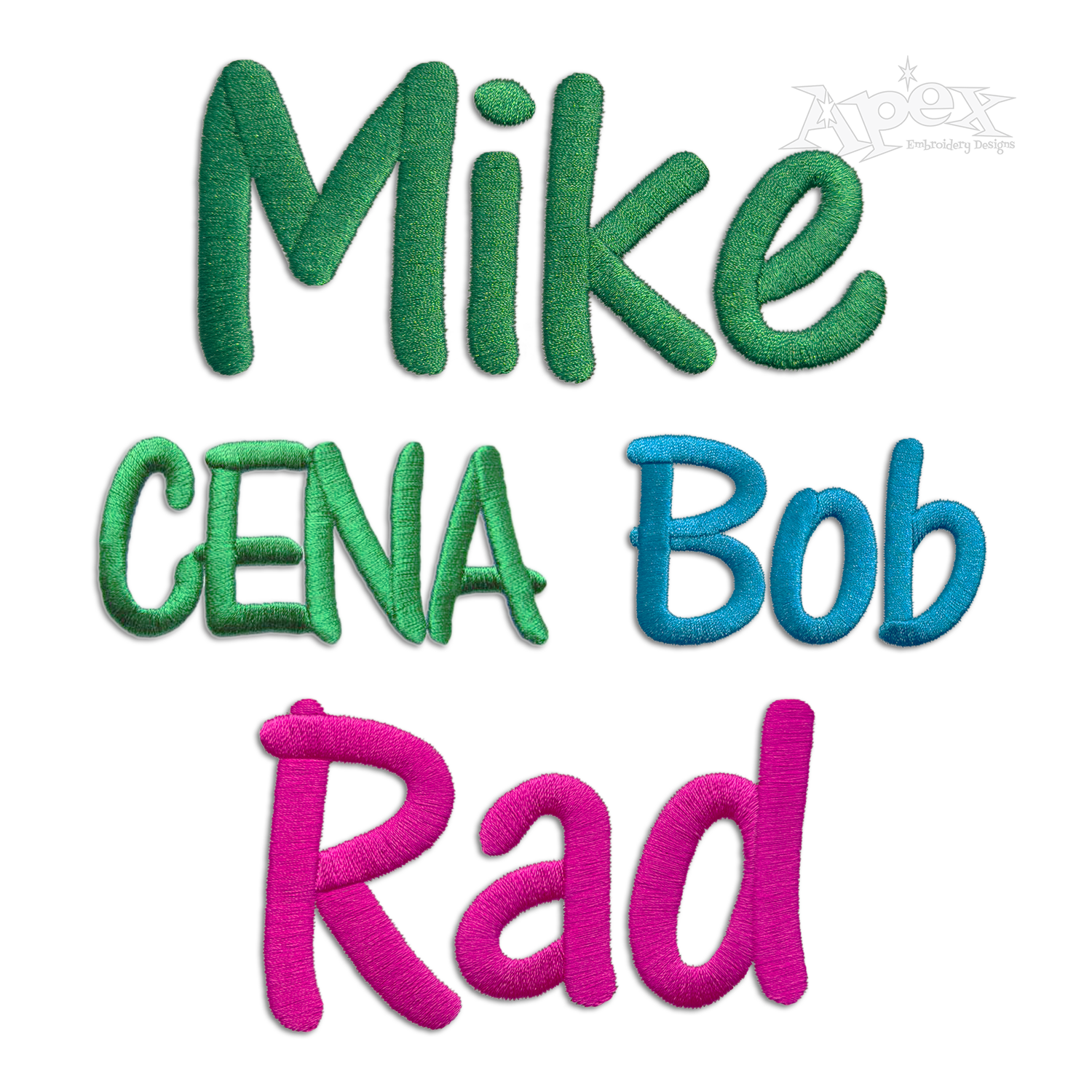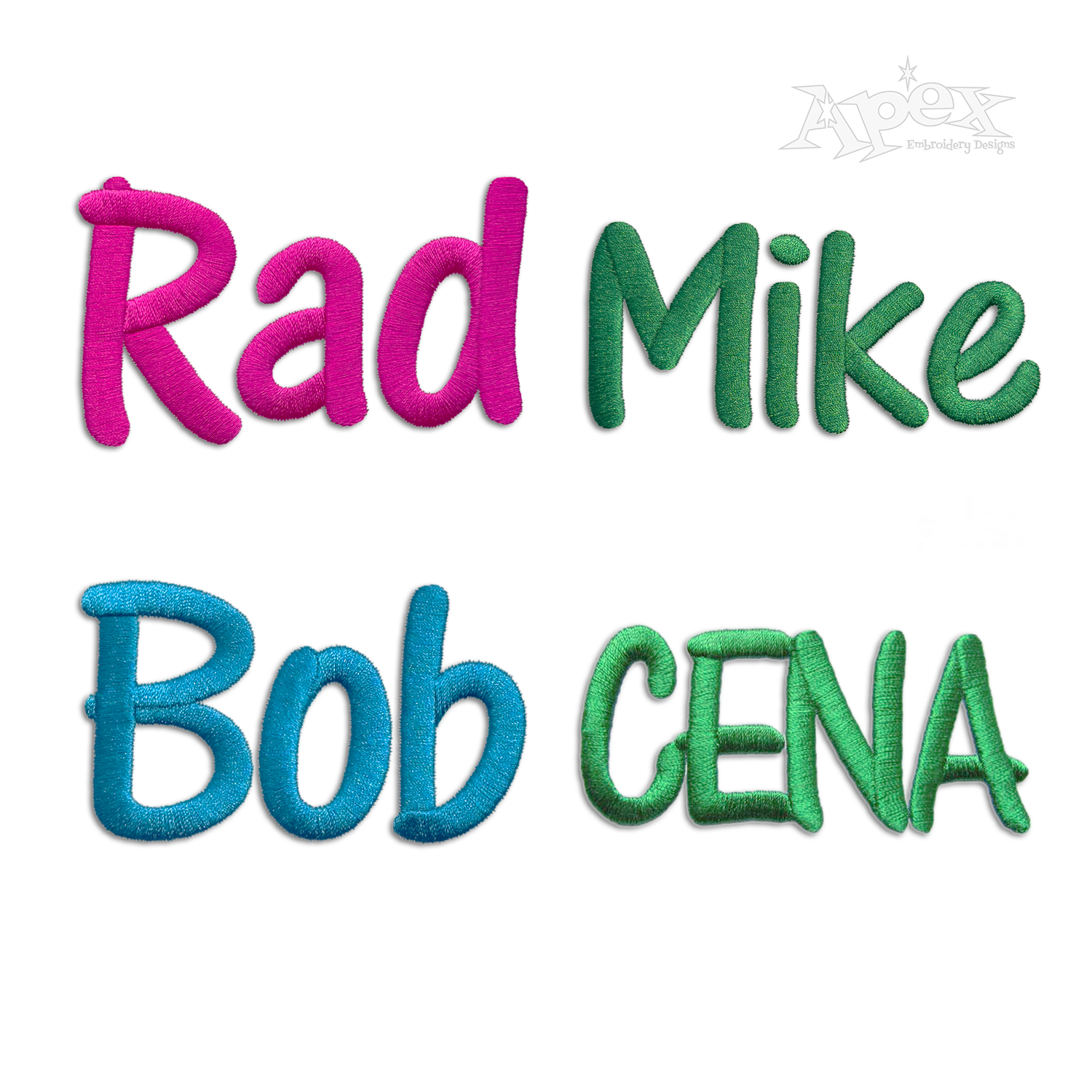
Round Marker Embroidery Font
There is an irresistible nostalgia and warmth to the sweeping, deliberate stroke of a fresh round-tip marker gliding across thick paper. When digitizing the Round Marker Embroidery Font, our goal was to capture that easygoing confidence and tactile charm, translating ink flow into rich, dimensional satin thread. Designed with plump stems, softened terminals, and an approachable rhythm, this alphabet brings an artisan, handcrafted energy to everyday textiles. It bridges the gap between mid-century casual signage and modern bespoke streetwear, delivering cheerful personality whether stitched onto cozy fleece, crisp cotton twill, or structured canvas.
Project Ideas for Round Marker Embroidery Font
- Youth Apparel & Denim Jackets: Personalize the back yoke of a child’s jean jacket or fleece pullover with rounded, friendly name lettering.
- Bespoke Resort & Poolside Gear: Stitch custom family monograms onto plush terry cloth pool towels, striped canvas totes, or casual bucket hats for an effortless summer aesthetic.
- Personalized Gifting: Create custom monogrammed lunch coolers, book bags, toiletry kits, and corduroy pouches for birthdays, bridal parties, or back-to-school milestones.
- Artisanal Kitchen & Craft Linens: Embroider playful names and kitchen titles across heavy-weight canvas aprons, bread bags, and canvas tool rolls.
- Casual Loungewear: Elevate relaxed weekend sweatpants and oversized hoodies with modern, marker-inspired collegiate initials.
- Left Chest & Pocket Placements: Position the 1-inch scale centered 7 to 9 inches down from the shoulder seam for a balanced, modern casual look on tees and fleece.
- Canvas Tote Pocket Centers: Use the 1.5-inch size centered directly across exterior drop pockets for striking, legible personalization that holds up against heavy-textured weaves.
- Garment Cuffs & Hemlines: Tuck a single 0.75-inch initial into the outer wrist cuff of a sweatshirt or along the hemline of a casual summer short for an understated bespoke signature.
- Diagonal Cornering: For kitchen tea towels or picnic throws, tilt names or monograms at a 45-degree angle in the lower right quadrant for an artistic, hand-signed appearance.
Round Marker Embroidery Font Craft & Letterform Details
The magic of a marker font lies in its curved ends and consistent weight. In machine embroidery, traditional square-cut column ends can feel rigid and mechanical; therefore, each terminal in this alphabet was manually mapped with radial cap pathing. This allows the embroidery needle to gently taper the satin columns, forming smooth, rounded ends that perfectly mimic ink saturation on paper.
Special attention was given to the junctions where strokes cross. By layering underlay supports and feathering connecting stitches, we eliminated thread bunching while maintaining the lush loft of the top satin layer. The stitch densities were balanced precisely to ensure high thread luster without pinching lightweight fabrics, allowing the letters to sit proudly on your fabric with the relaxed, effortless spirit of handmade art.